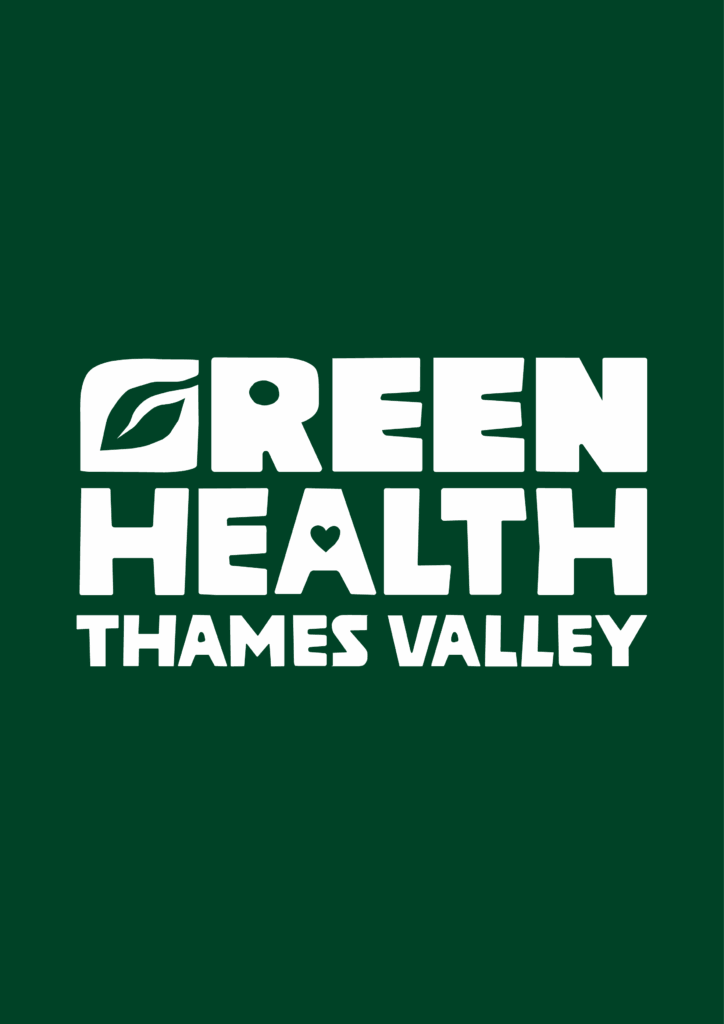
Background
Green Health Thames Valley is a therapeutic gardening charity based in Reading that uses horticulture to support people’s mental and physical health. Their work centres around giving people access to outdoor, hands-on activities as a way to improve their wellbeing – this became clear to us once we actually visited their site. This project was slightly different for us to begin with, as a previous student group had initially worked with Green Health as part of a branding project, producing brand guidelines, audience personas, user journey maps, competitive analysis and brand personality matrix. Rather than starting from scratch, our job was to build on this foundation and take the brand further through a new set of deliverables.
We had an initial meeting with our supervisor to get up to speed on the project history before meeting with the client for the first time. Visiting the charity’s site in Reading was extremely beneficial to us to do early on: seeing the physical space allowed us a better understanding of the organisation’s environment. It is an outdoor, working space that shaped how we made design decisions throughout the rest of the project.
Restated brief
Our first meeting with the client gave us a broad starting point: the initial list of deliverables included a refreshed website, postcards and potential merchandise such as mugs, aprons and t-shirts. From there we worked together to agree on a more defined set of printed outputs: postcards, mugs, aprons, t-shirts, business cards and a calendar.
The brief then shifted again once we factored in budget. Working with a charity is not much room for extras that are not as important, so we had an honest conversation with the client after sending over cost estimates about what would actually be worth producing. We eventually decided on t-shirts, business cards and a calendar for the printed deliverables, alongside the refreshed website – this set of deliverables covered in-person visibility, practical contact information and a digital presence that could support both new members and potential funding investors.
Research & ideation
Our research phase was largely shaped by the work that had already been done by the previous group. They had put together a thorough body of work which meant we had a solid understanding of the organisation and its audience. Rather than duplicating that, we used it as a springboard and focused on our own research to fill in the gaps.
We also spent some time reviewing the existing brand with a fresh perspective, and wanted to refine a few things before we could take it further. We made small adjustments to the shaping of the individual letterforms in the main logo in Illustrator to soften the edges and appeal more to the sense of community and warmth, rather than harsh jagged lines. We also tweaked the colour palette by getting rid of the original dark brown shade, and introducing a lime green shade – alongside the original dark green (primary) and red (accent) – to bring some freshness and contrast.
Design development
Business cards
The front of the card stayed fairly consistent across different versions – the dark green background with the logo and tagline was the most effective way to showcase the brand. The main changes happened on the back, where it took a couple iterations to balance the information visually. The first version used a black background on the back with a large QR code to the website and the contact details listed plainly – also with a casual “scan me for more info!” prompt. It worked at a basic level but felt too rough: the black background clashed with the green front and the layout wasn’t very considered.
In the second iteration we changed the background to white and introduced the logo and tagline alongside the QR code, with contact details listed below. This felt more branded but was too cluttered for such a small format.
For the final version we used a white background again with a lime green vertical rule dividing the QR code from the contact details – this brought in the secondary green colour in a way that felt more deliberate rather than decorative. Icons were added next to each piece of information to make it quicker to scan, and the red heart from the original branding (with softened edges) sits quietly in the corner as a small but effective detail. The front remained the same: the dark green filling the card, the logo larger and the tagline underneath.
Aprons
The apron was one of the earlier merchandise options we explored, and while it didn’t make it into the final deliverables, it was a useful exercise in thinking about how the brand translates onto a garment used in an outdoor, practical setting.
We worked through four options on a black apron to present to the client. The first has just the leaf icon in the pocket area, which was minimal but lost the brand name entirely. The second added the full logotype below, which gave it more presence but felt a bit heavy with both the icon and the wordmark competing for attention. The third swapped the icon for the red heart in the pocket, keeping the logotype below – a warmer feel that leaned more into the brand’s personality. The fourth stripped it back further, replacing the logotype with just the tagline ‘a garden for growth.’ alongside the heart, which felt more considered and less like a uniform.
From there we refined the colourway, switching from black to dark green to bring the apron in line with the brand palette. The final version kept the heart in the pocket and the tagline centred below, which was simple, on-brand, and practical enough for a working garden environment. Although this one didn’t go to print, it was good practice for producing mockups and thinking through how brand elements behave at different scales and on different surfaces.
Harry
This real job has been an enjoyable and insightful experience that has taught me new skills in teamworking, branding and art-directing. Me and Rachel worked closely as a pair, and would meet frequently with our client which helped create a positive working relationship. In hindsight, the project could have been improved had we been more consistent in sticking to our proposed deadline – which was inevitably extended. I found that managing this Real Job, as well as other concurrent jobs and deadlines was hard and required an extra effort to schedule and manage this project with my other modules and Real Robs. However, working with Rachel, we were able to make a schedule that ensured an effective delivery of deliverables in the latter stages of the project. I believe that I can use these strategies of work scheduling for the future to organise myself for future professional practice. This Real Job gave me a better and clearer idea of working with a client for a branding project – because of this experience, it has inspired me to work on and seek more branding roles and projects after graduating.